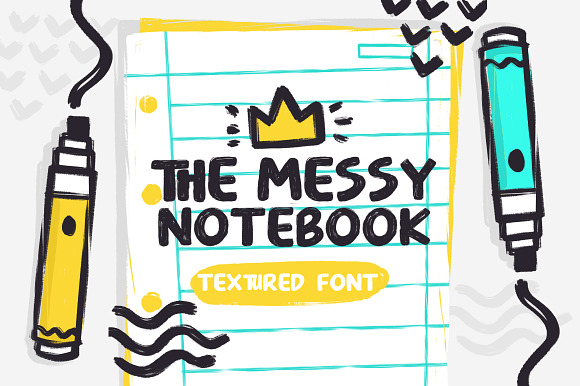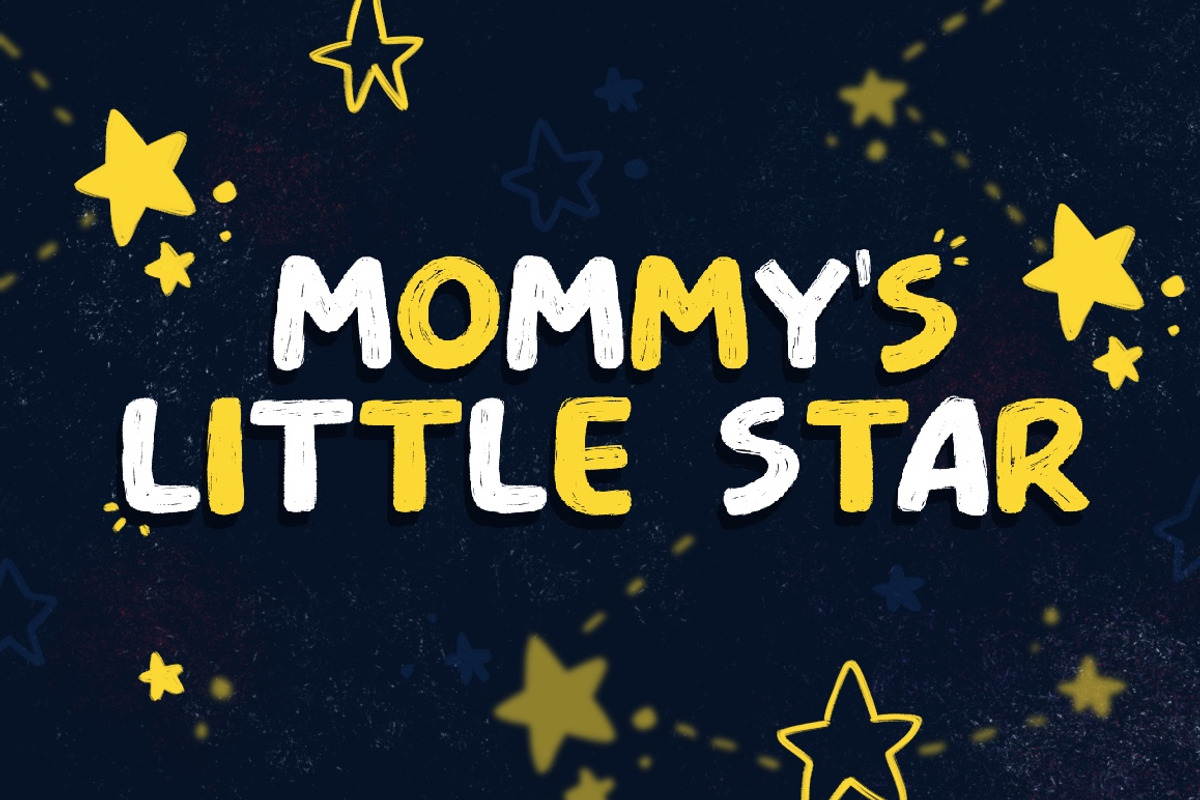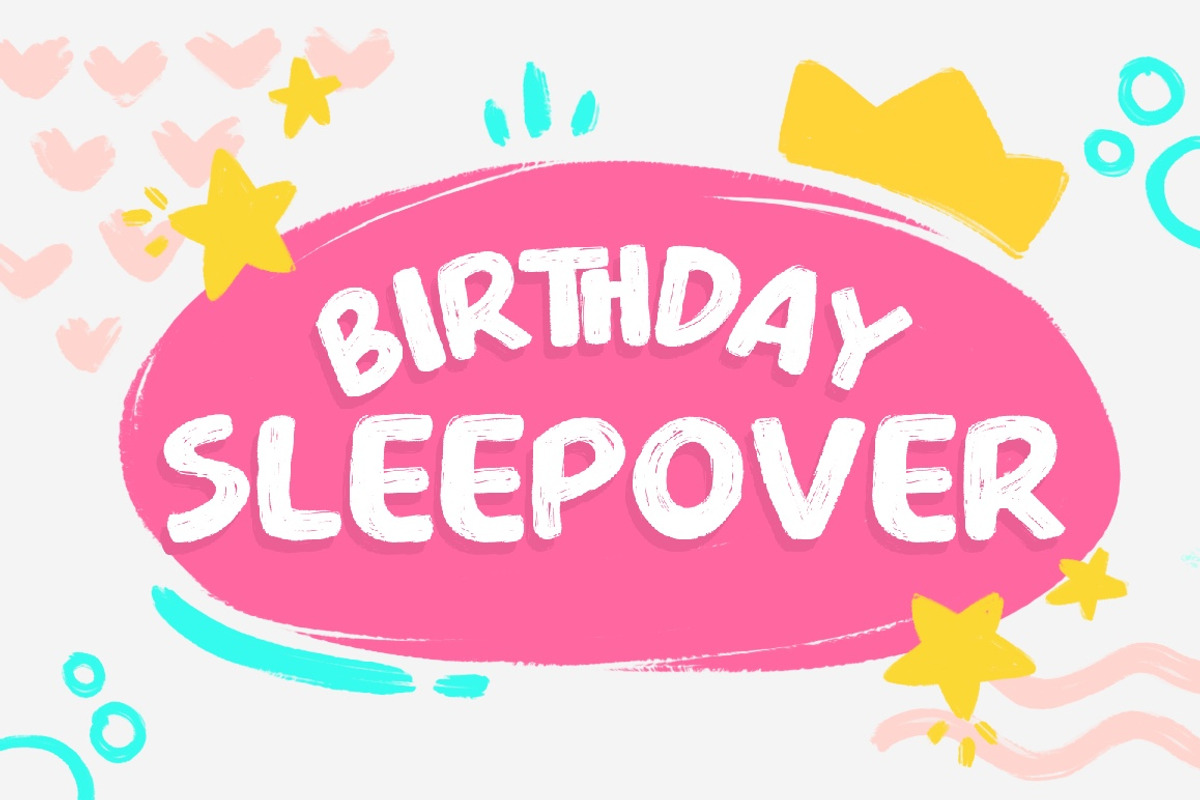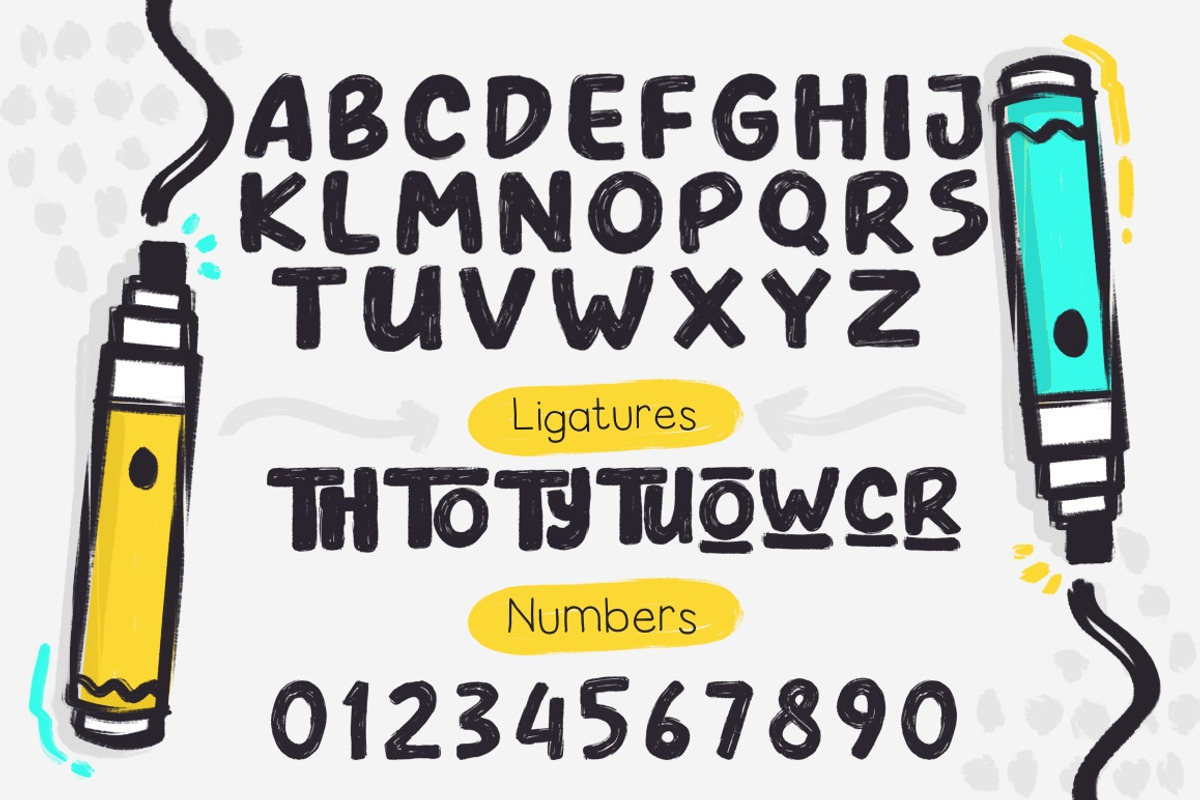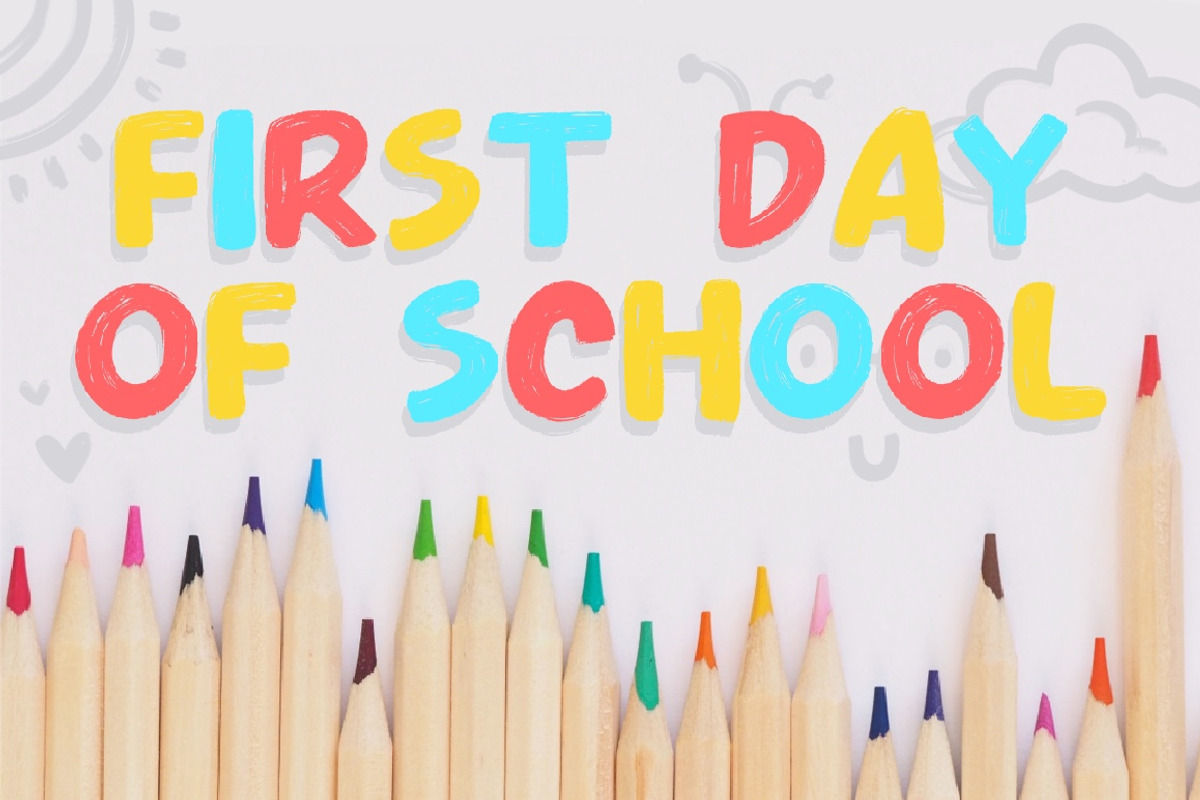
Messy Notebook - Textured Font
Messy Notebook - Textured Font Let me introduce this cutie to all of you guys! This cutie was 100% handmade to reassure that every letter would have that handmade style and textured we all love! This font would give your design a whole new level of cuteness.
Ligatures that would make yours designs more fun and unique
Design cards, logos, invitations, products and more!
- Multi language font Ligatures that would make yours designs more fun and unique Design cards, logos, invitations, products and more!